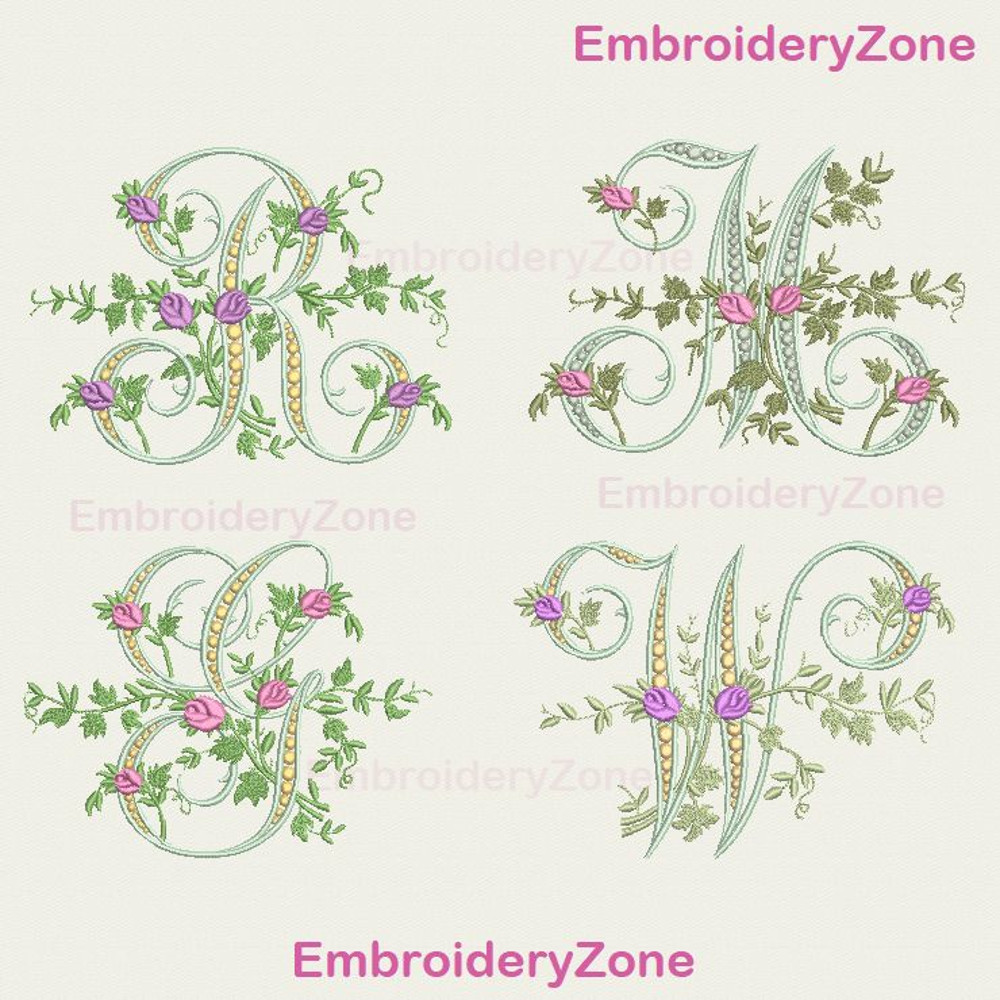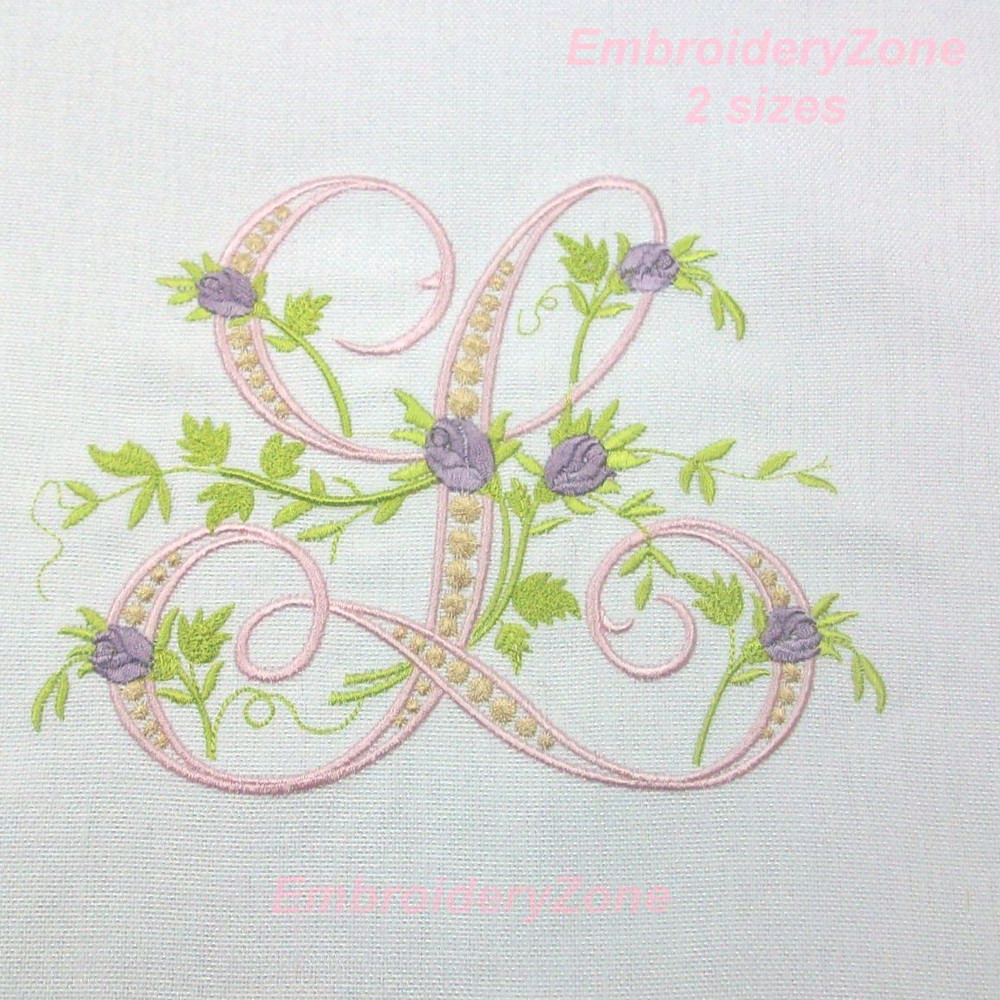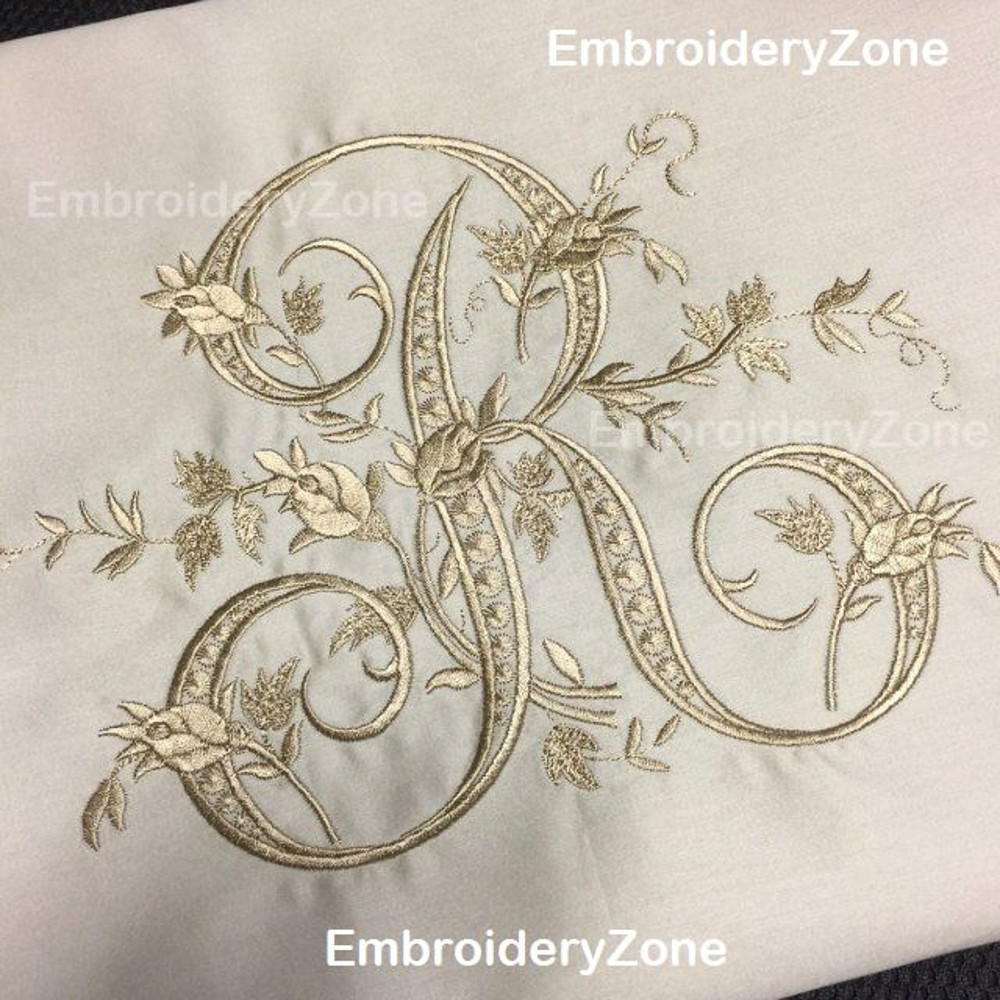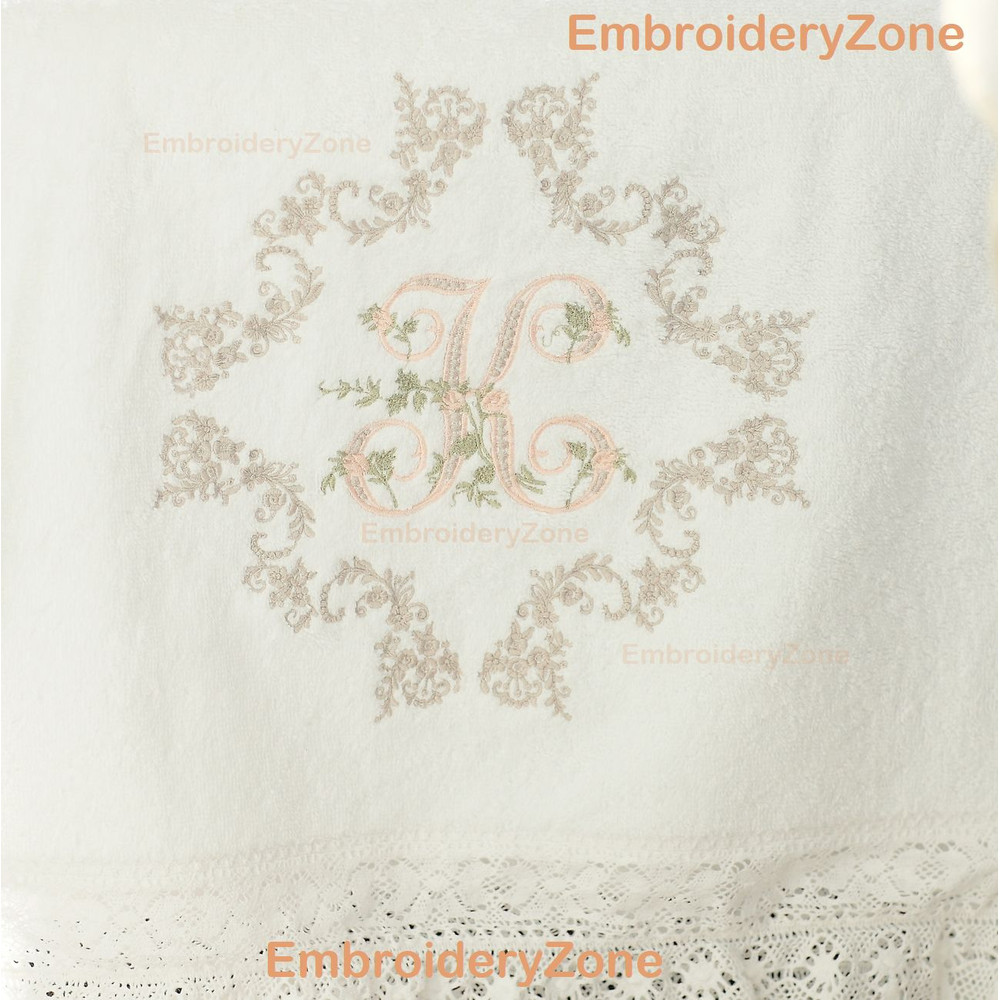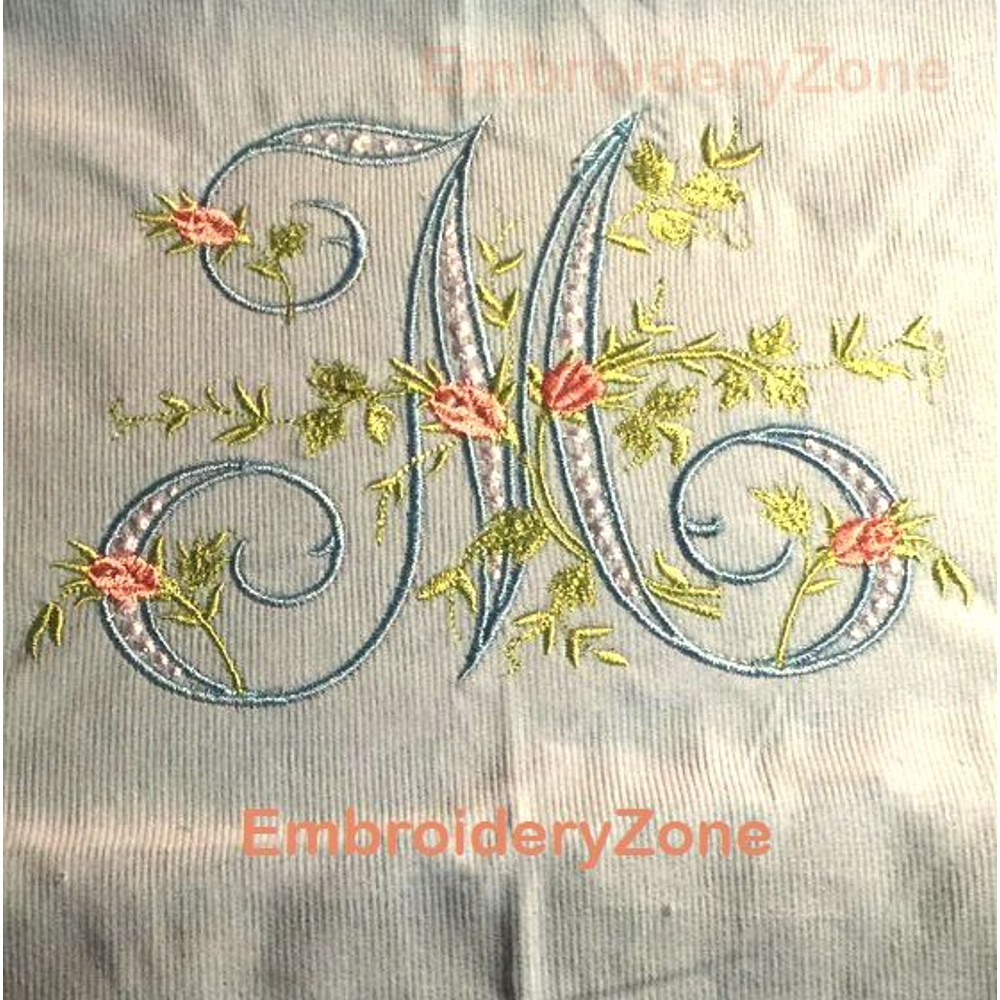
Wedding font with roses embroidery design, floral letters monogram with rose buds embroidery patterns, alphabet design
Wedding letters with roses and buds machine embroidery design, floral font with rose buds for personal monogram embroidery patterns, decorative alphabet embroidery design, 26 letters. All letters are for embroidery in 5" x 7" and 6" x 10" hoops. Some of the letters are made for 4" x 4" hoops.
Created especially for this alphabet, the ampersand, and to be here